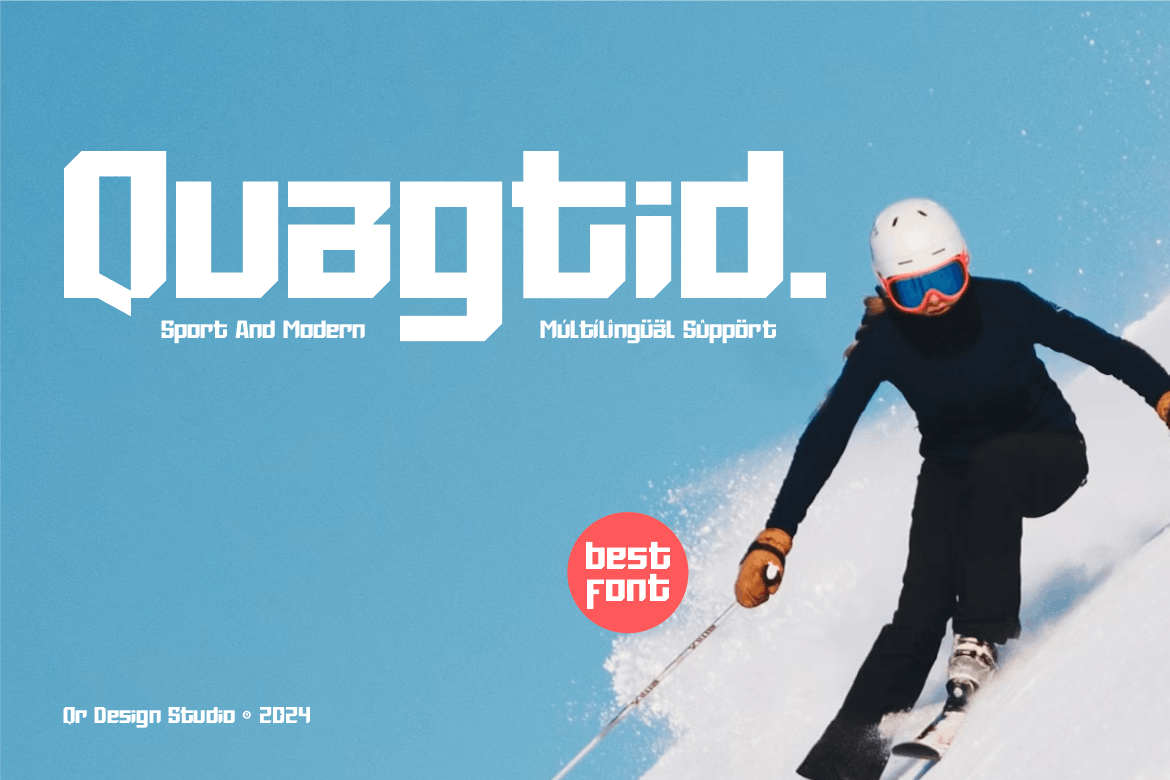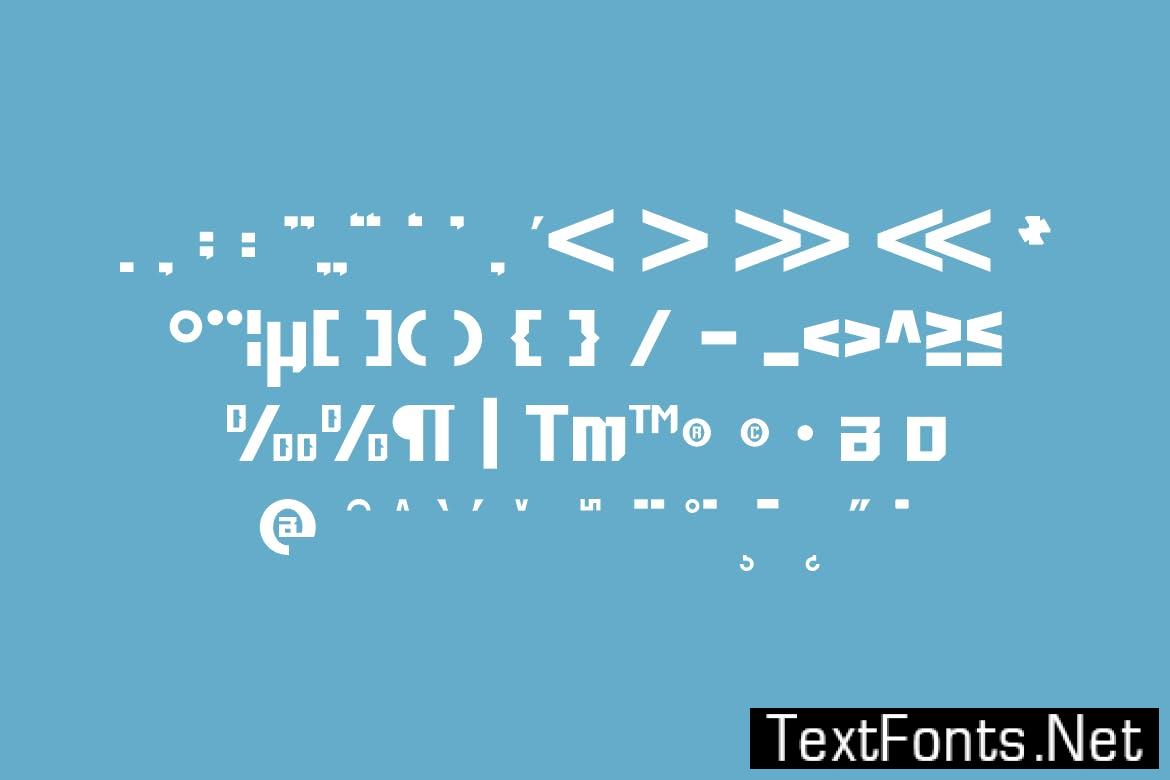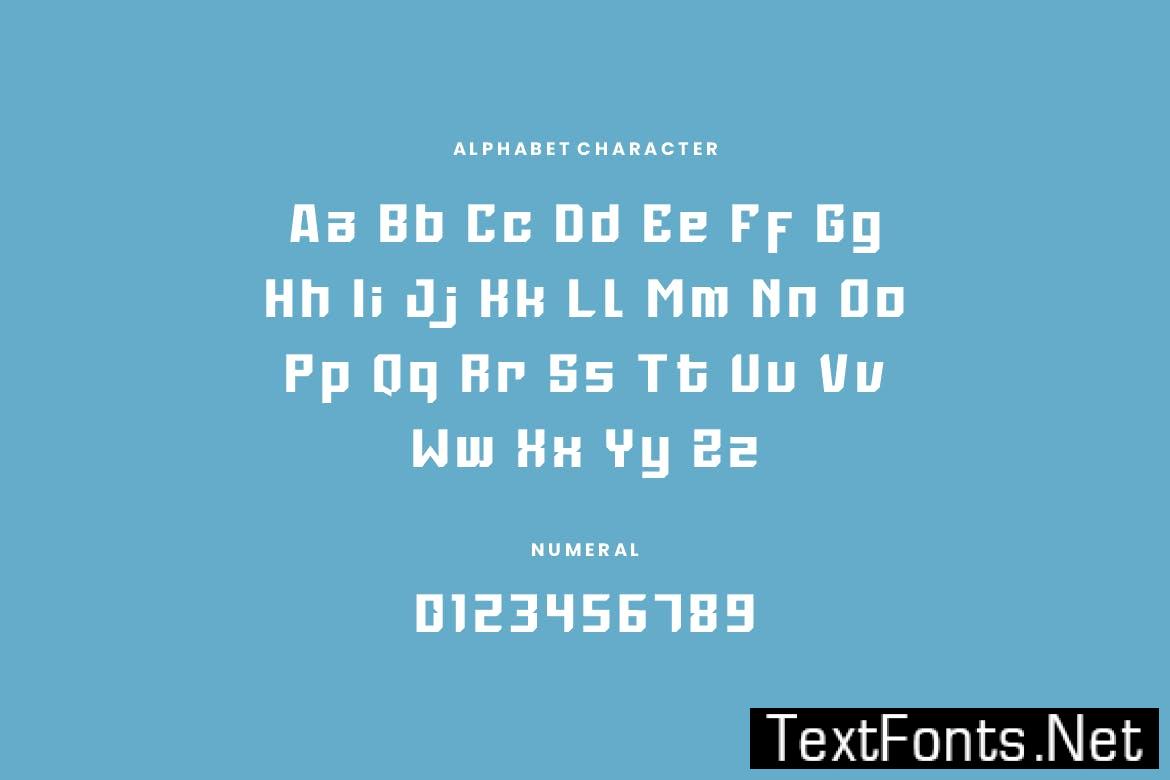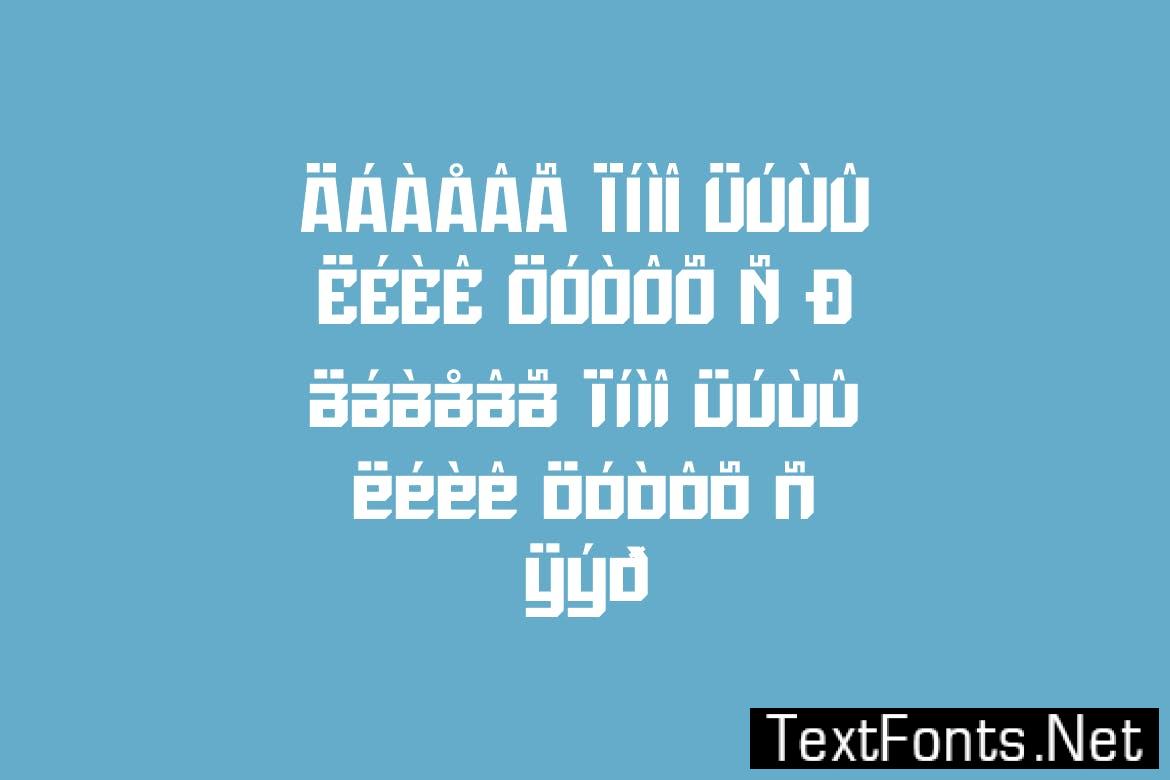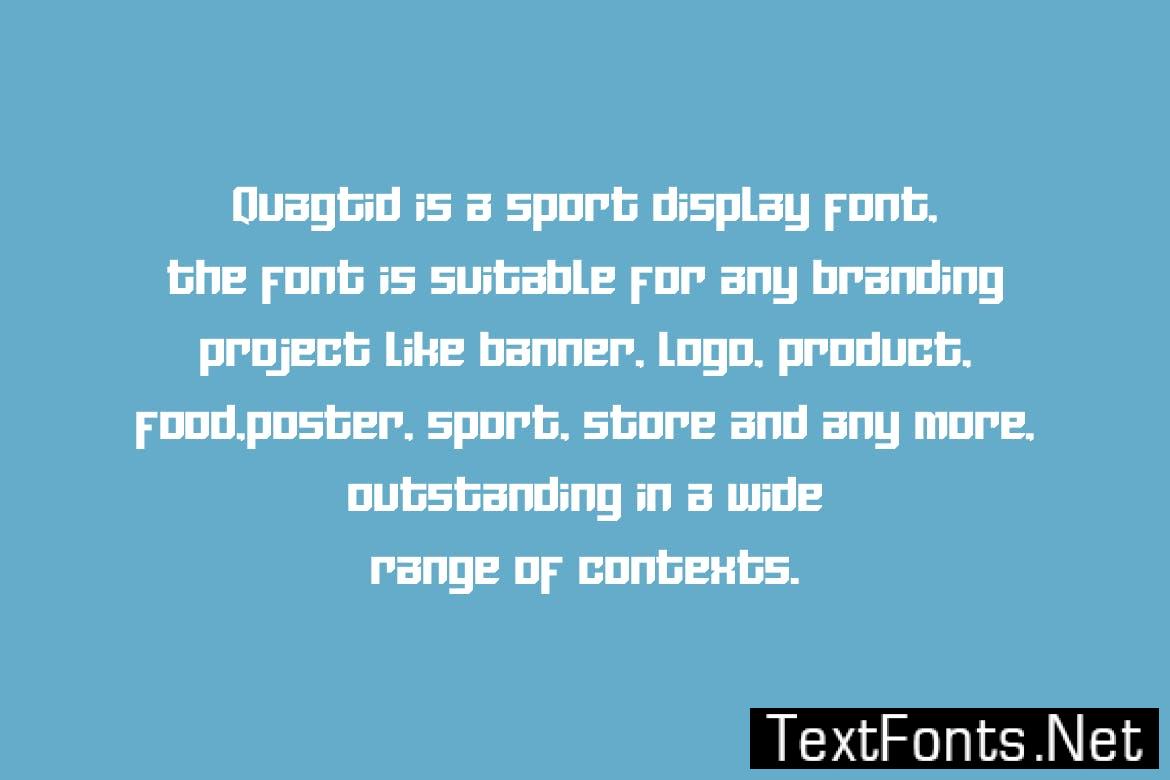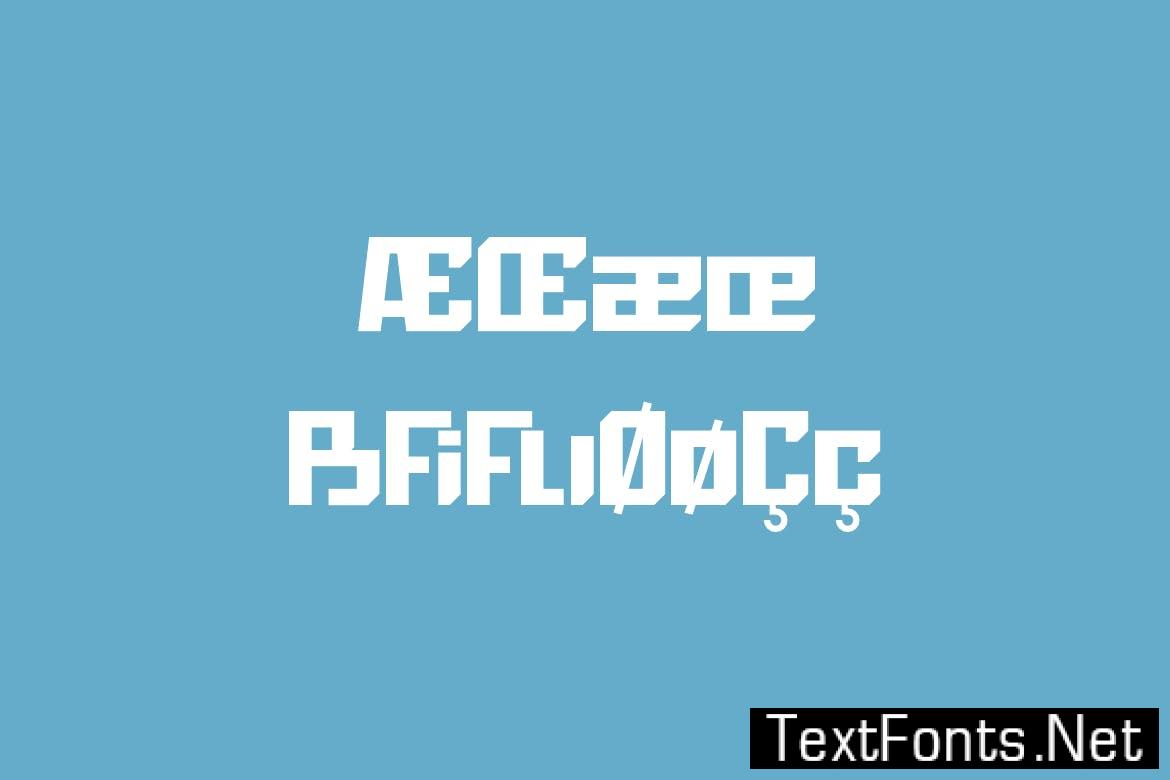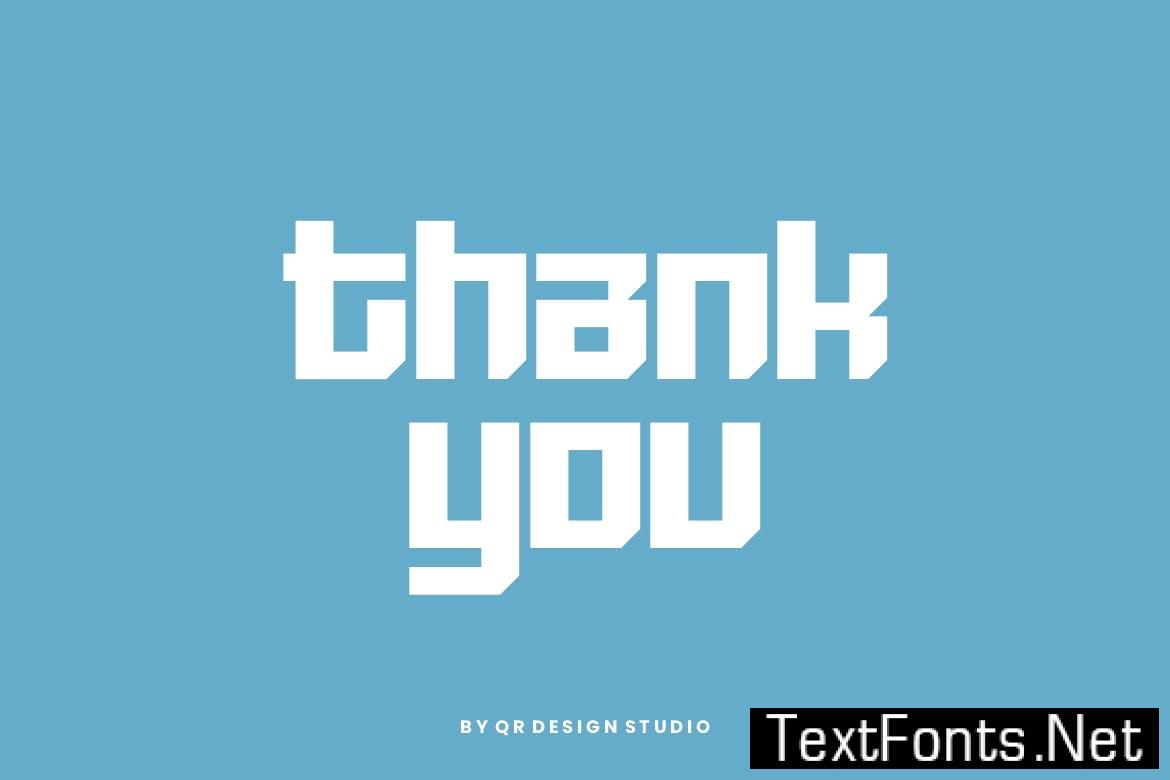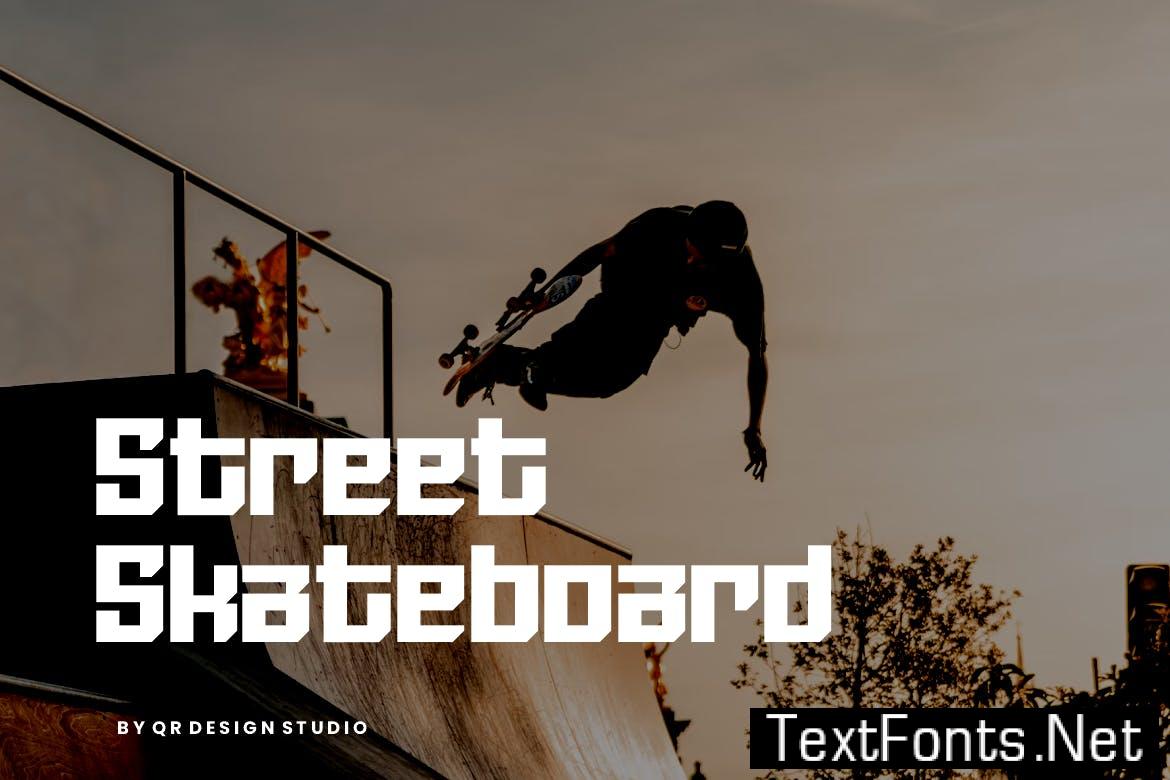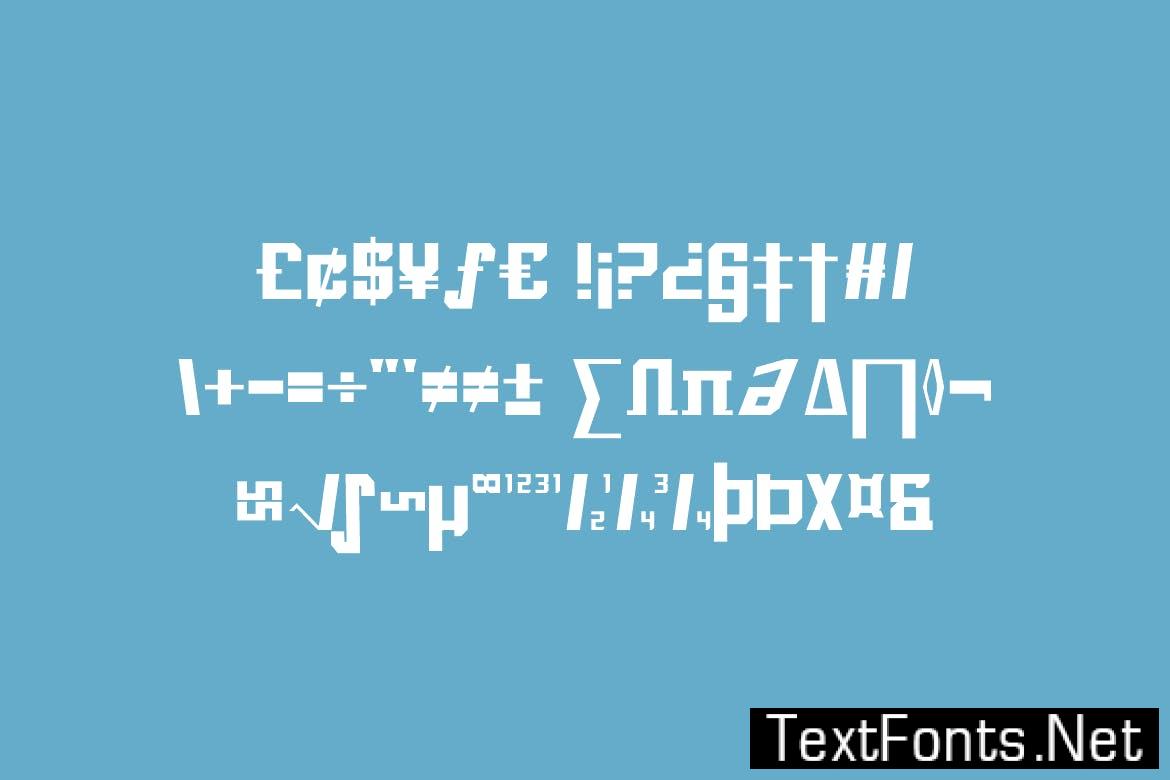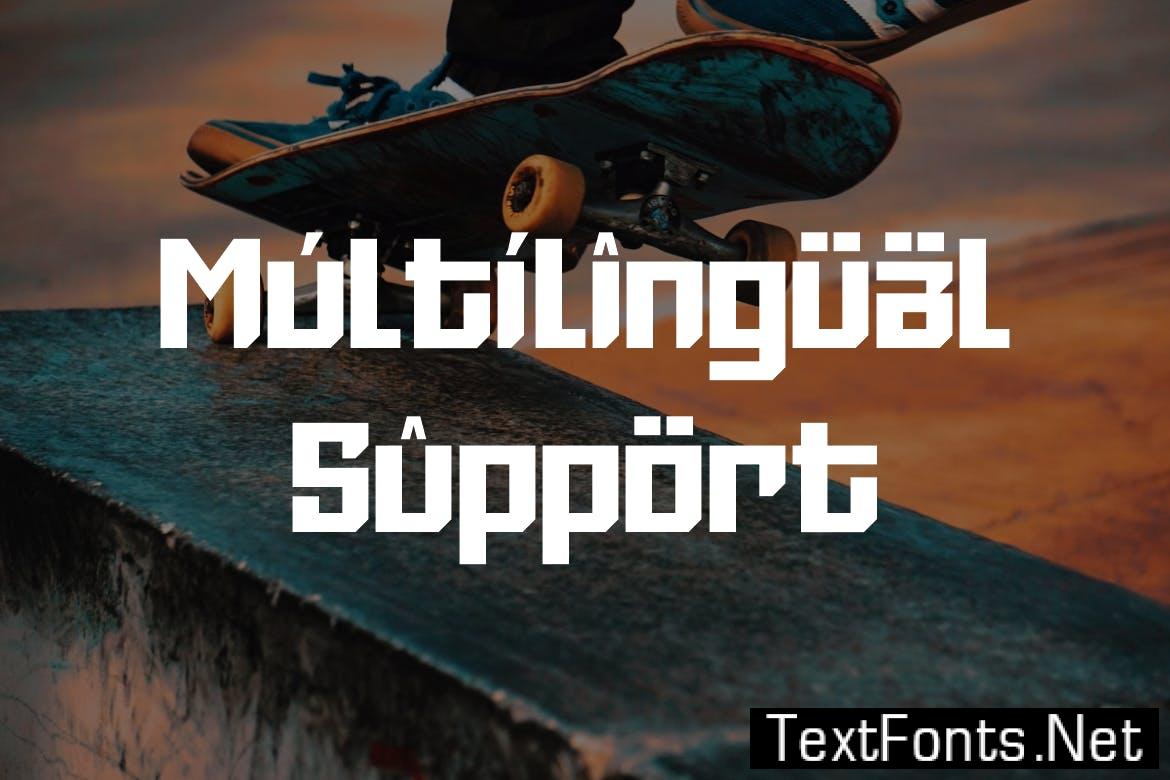
Quagtid – Sport & Logo Font A2T5WB4
**Quagtid Font** is a sans serif and minimal logo font.
The font is suitable for any branding project like stylish, poster, logo, sport, and many more.
Outstanding in a wide range of contexts.
+ Uppercase & Lowercase
+ Ligatures & Alternate
+ Numeral & Punctuations
+ Multilingual Support
+ Extended Character Setspacing: Normal